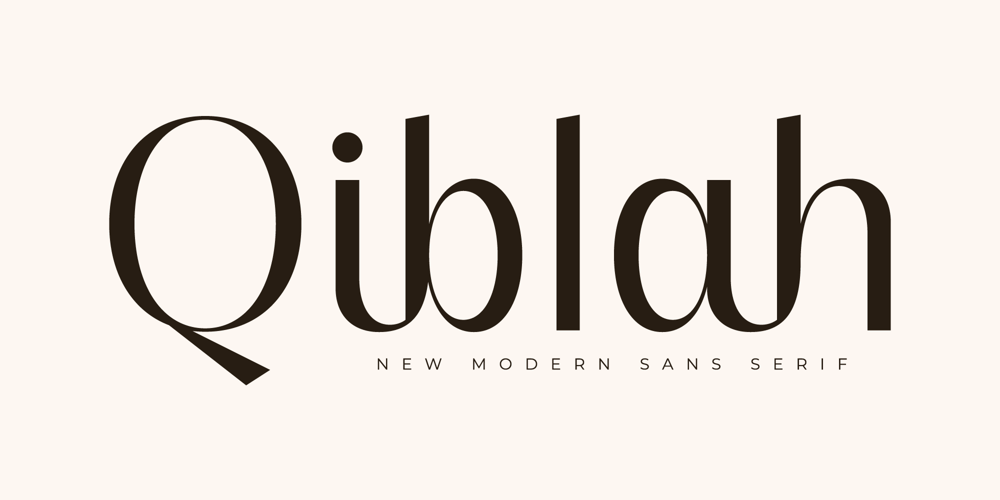
Qiblah
Qiblah font
Qiblah Font Family was designed by Heru Utama Putra and published by Letterena Studios. Qiblah contains 2 styles and family package options. Qiblah is a modern and stylish sans serif font. Add it confidently to your projects and enjoy the results!